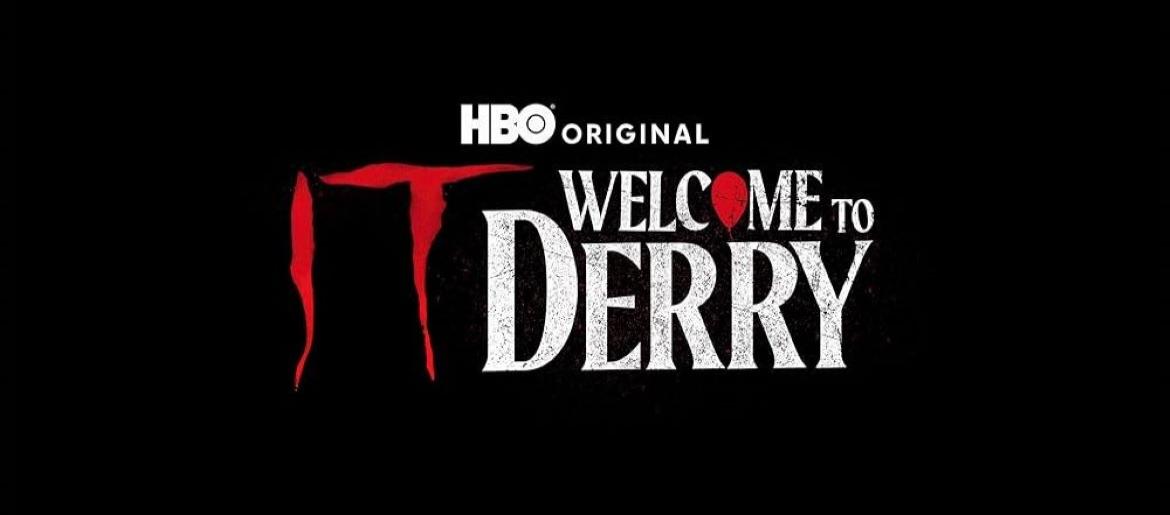
Welcome to Derry Font
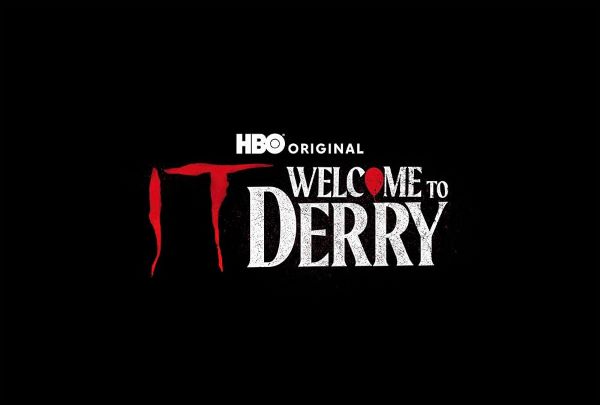
What Font is Welcome to Derry?
The Welcome to Derry Font used in the title of the television series appears to be a custom-designed typeface, and no exact commercial match has been reliably identified. If you’d like to recreate the look, there are several free and premium alternative (Spirits Sharp Regular) fonts available that approximate the design’s distinctive tall, slightly condensed serif style with a horror-themed aesthetic.
About It Welcome to Derry
It: Welcome to Derry (2025) is a supernatural horror television series set as a prequel to the It films. It follows terrifying events in the town of Derry, Maine, long before the Losers’ Club confronted the malevolent entity. The series explores origins, fear and darkness through a period-setting marked by ominous visuals and chilling atmosphere.